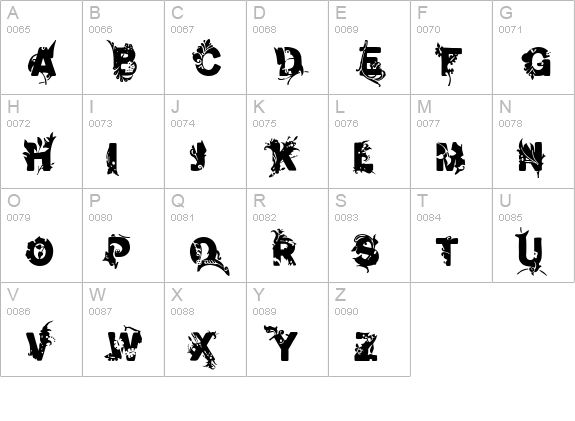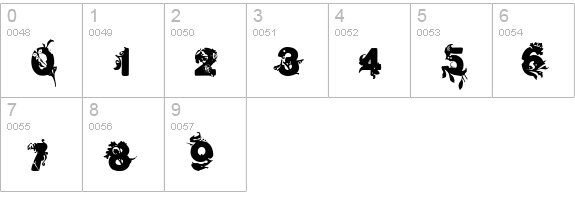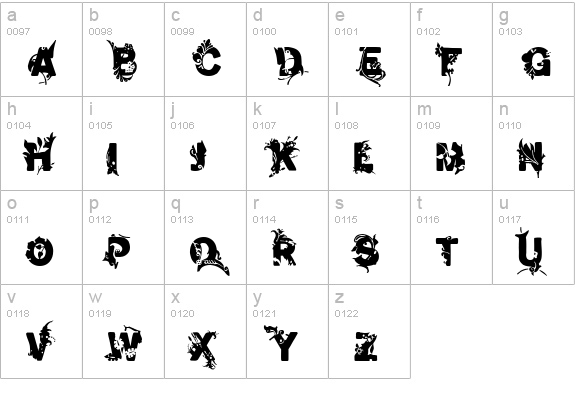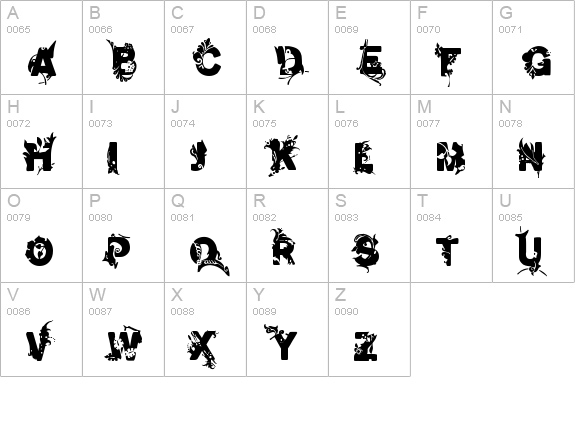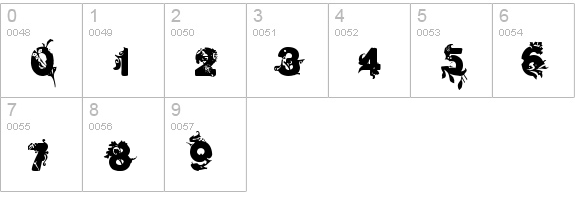
GardenFull Font Details
GardenFull font is a whimsical and charming typeface that exudes a sense of natural beauty and tranquility. With its organic shapes and flowing lines, this font is perfect for adding a touch of whimsy to your designs. The playful yet elegant style of GardenFull font makes it ideal for a variety of creative projects, from invitations to branding to social media graphics. What sets GardenFull font apart is its versatility and unique personality. Whether you're designing a cozy cottage-inspired logo or creating a dreamy wedding invitation, this font will bring a touch of magic to your work. Its gentle curves and graceful letterforms evoke a sense of wonder and enchantment, making it the perfect choice for projects that require a touch of whimsy. Best of all, GardenFull font is completely free to download at FontsMarket.com. This means that you can add this delightful typeface to your font collection without breaking the bank. So why wait? Bring a touch of natural beauty to your designs with GardenFull font today!